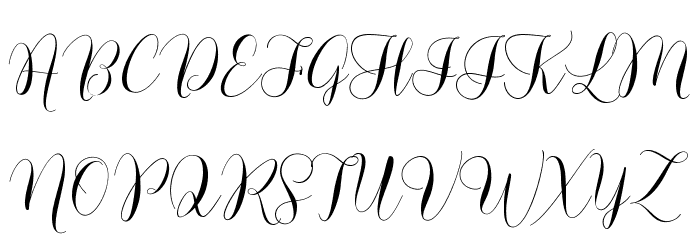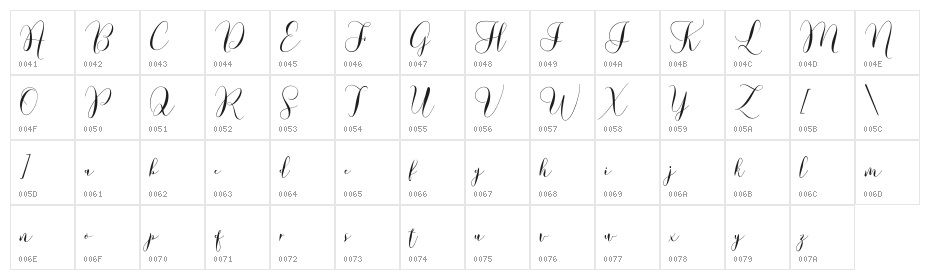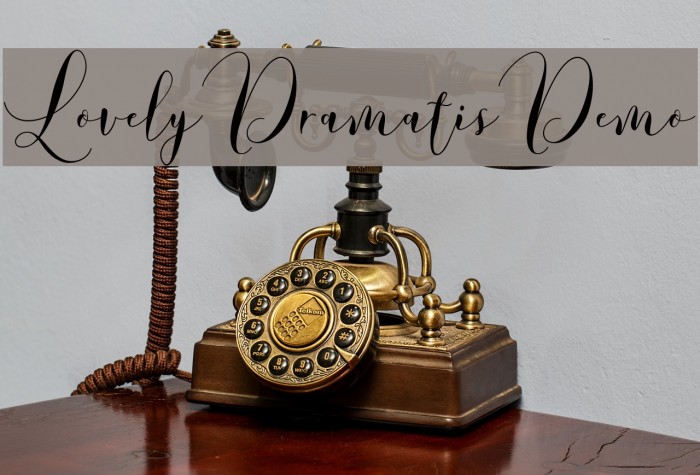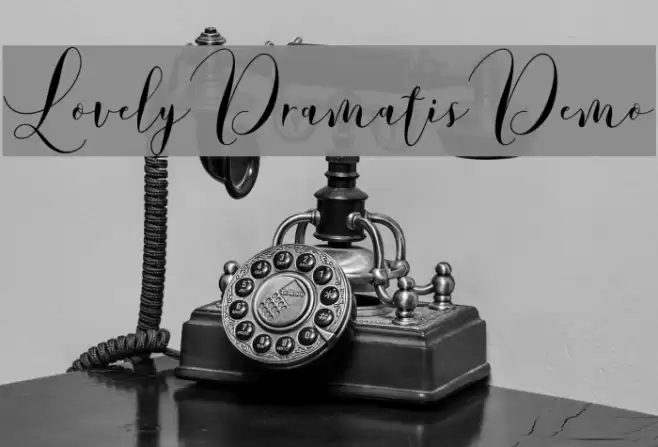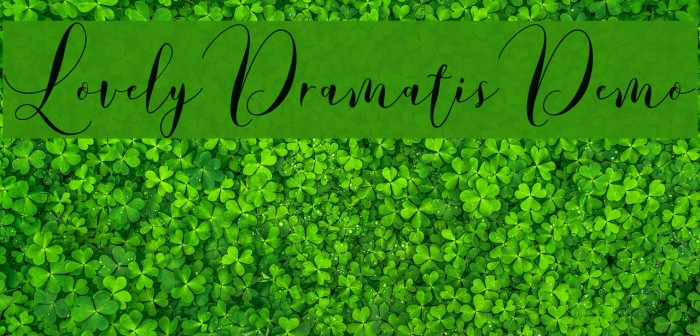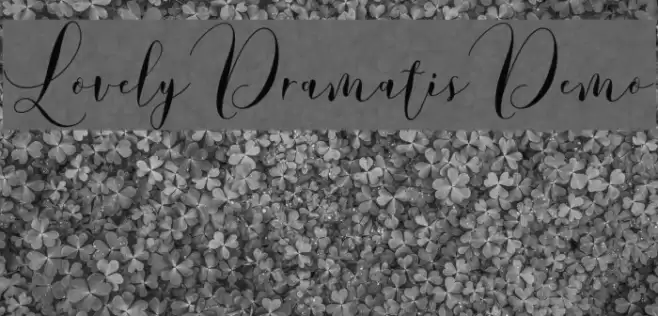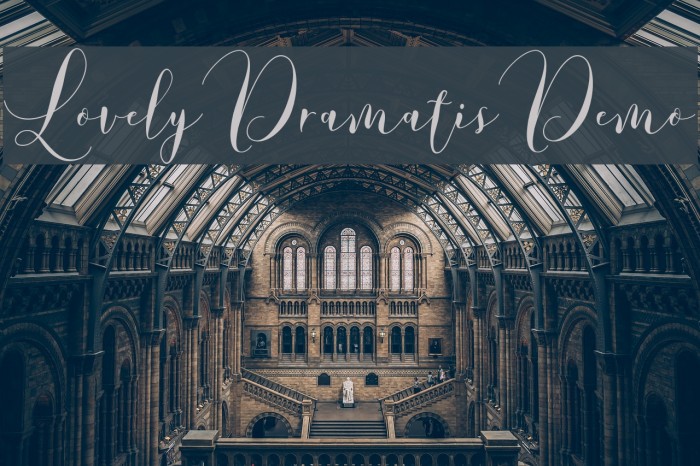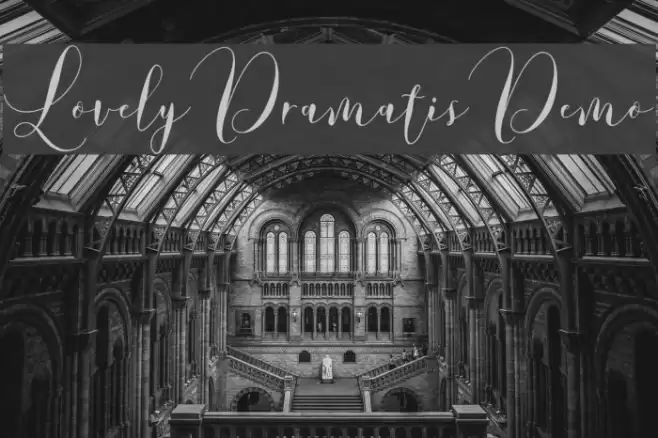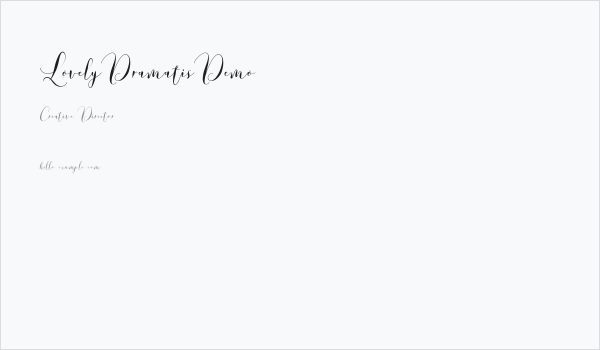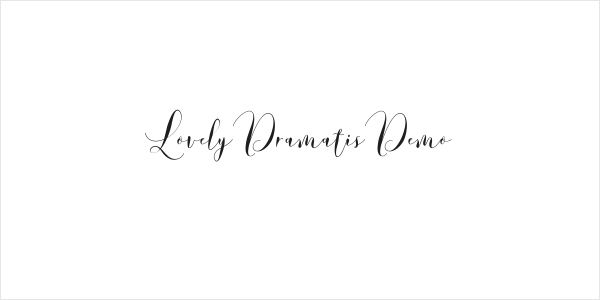
LovelyDramatisDemo Font
LovelyDramatisDemo Description
This elegant script font features a flowing, cursive style with intricate loops and swashes, giving it a sophisticated and artistic appearance. The uppercase letters are particularly ornate, with extended flourishes that add a touch of drama and elegance. The lowercase letters maintain a consistent flow, complementing the uppercase with their graceful curves. The font has a calligraphic quality, reminiscent of hand-drawn lettering, making it ideal for formal invitations, branding, and decorative purposes. Its delicate lines and high contrast between thick and thin strokes enhance its visual appeal, making it stand out in any design.
Use CaseLogos, Invitations, Decorative text
Proposed ProjectsIdeal for wedding invitations, luxury branding, greeting cards, and decorative signage.